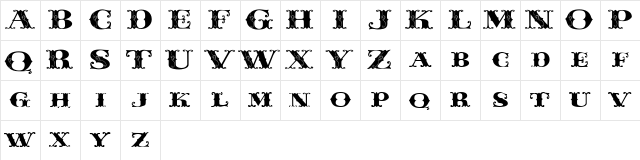
LHF Letterhead Tuscan BETA Regular Free Font
LHF Letterhead Tuscan  BETA Regular
Design Context for LHF Letterhead Tuscan BETA
LHF Letterhead Tuscan BETA is a composed and adaptable typeface that performs quietly and consistently across a wide range of design contexts.
Pro Tip: Use LHF Letterhead Tuscan BETA in both headline and body roles to test its range before committing to a single application.